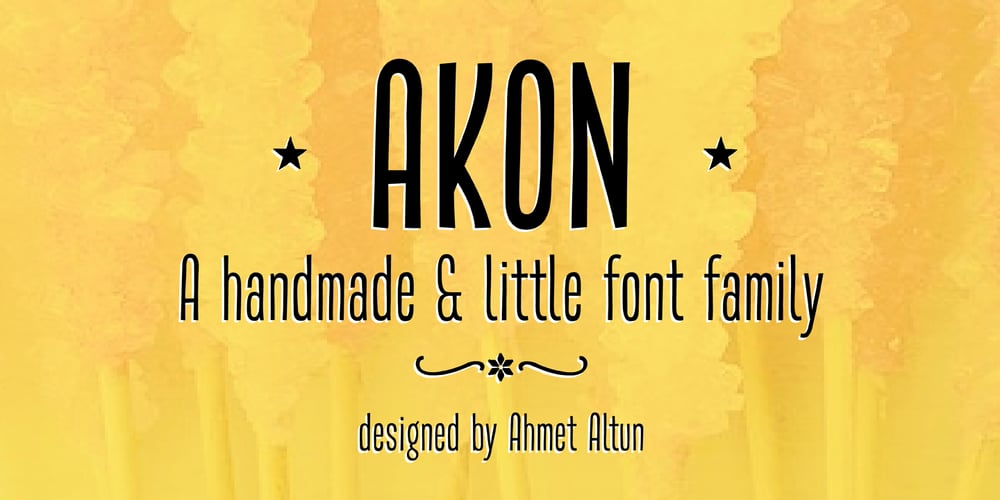
Akon Font Family was designed by Ahmet Altun and published by Ahmet Altun. Akon contains 2 styles and family package options. Akon Font Family comes in 2 weights; Regular and Bold. It is completely hand-drawn. The Akon Font Family has a few ornaments and stylistic alternates, ligatures, small capitals, Scientific Inferiors and so. This font family would fit in your mobile application designs magnificently and is a great choise for poster design. With this font family, you can create eye-pleasing and nice works such as posters, printings, t-shirts, adds, magazines etc.